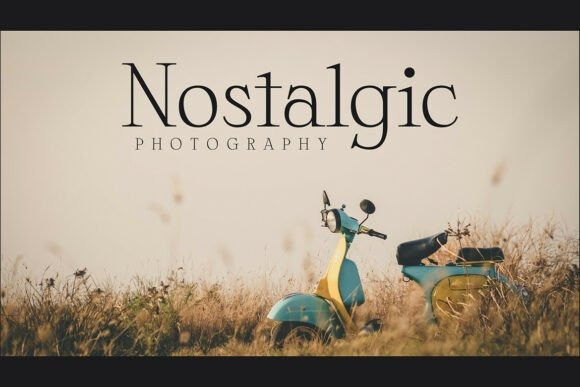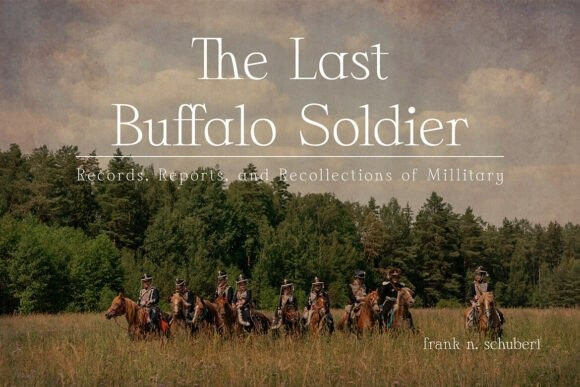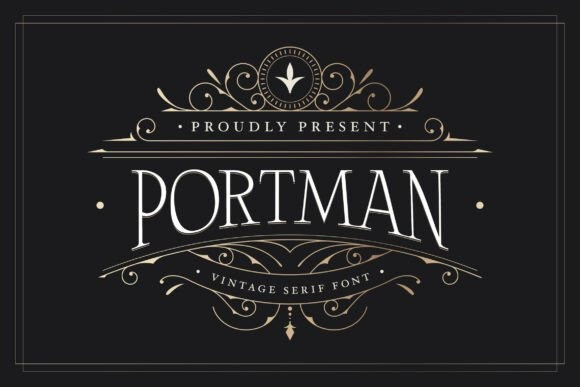
Portman Font
Portman Font is a vintage-inspired serif typeface with a tall x-height and high contrast between thick and thin strokes, giving it an elegant and classic look. The font includes a full set of uppercase and lowercase letters, as well as numerals, symbols, and punctuation.
It features a unique character set with ligatures and stylistic alternates to help you create more dynamic and cohesive designs. Portman also offers multilingual support, making it a versatile choice for projects aimed at a global audience.